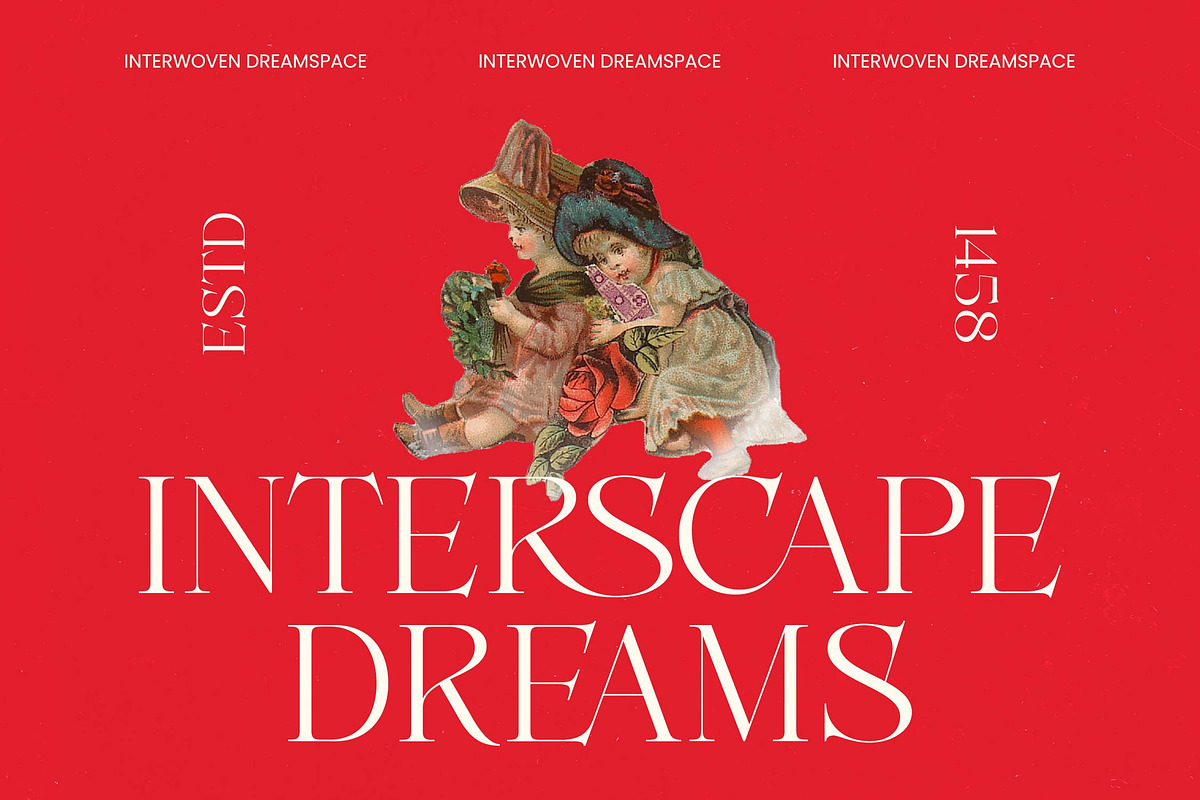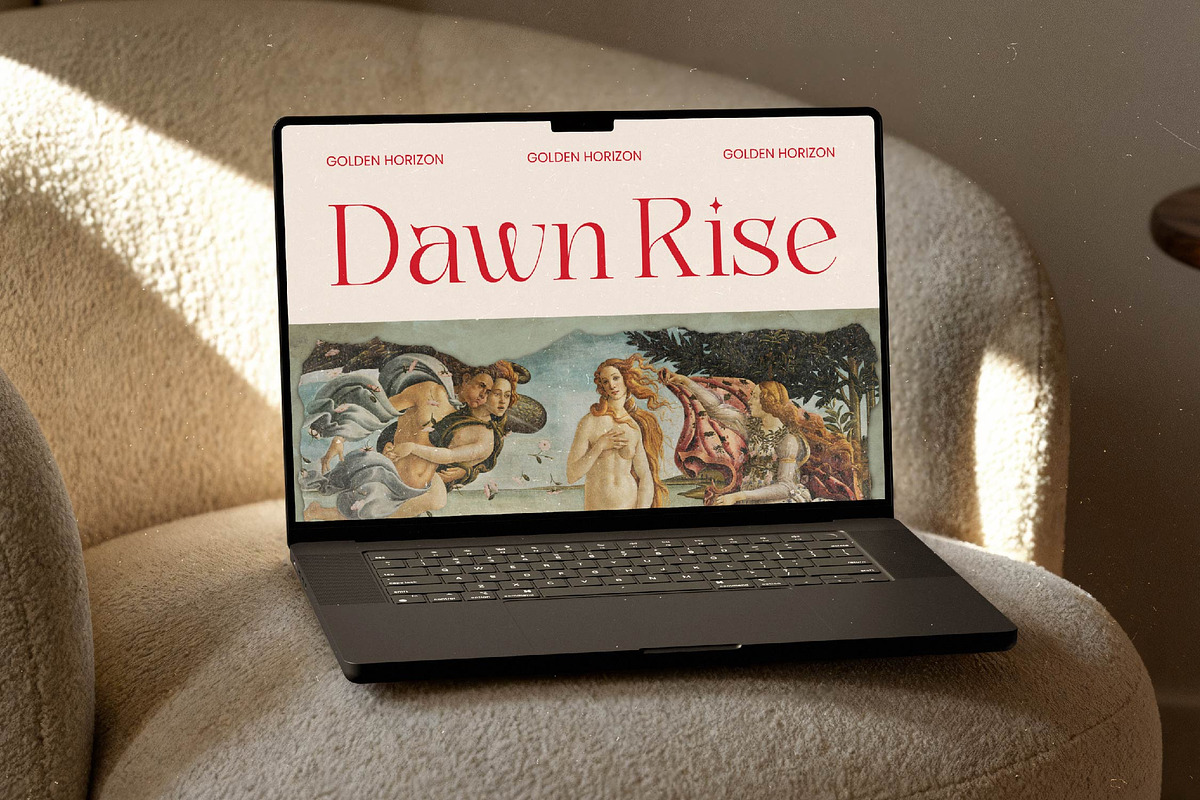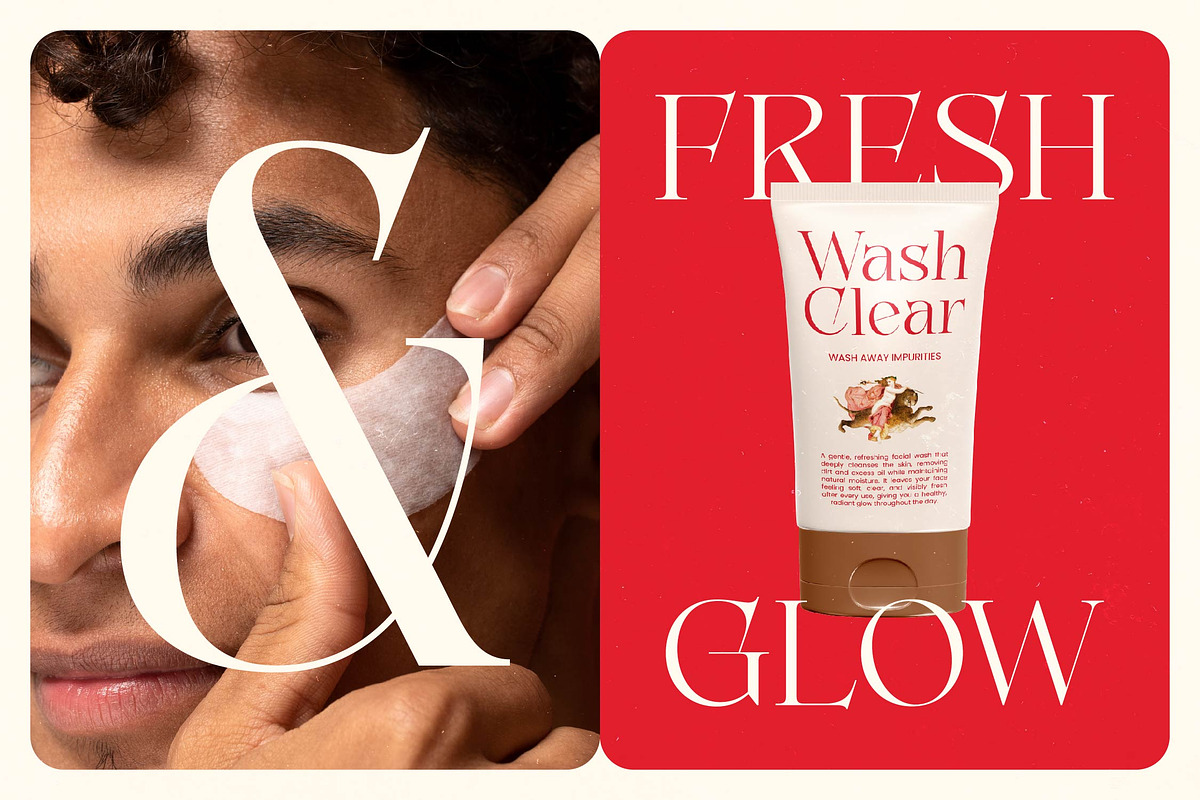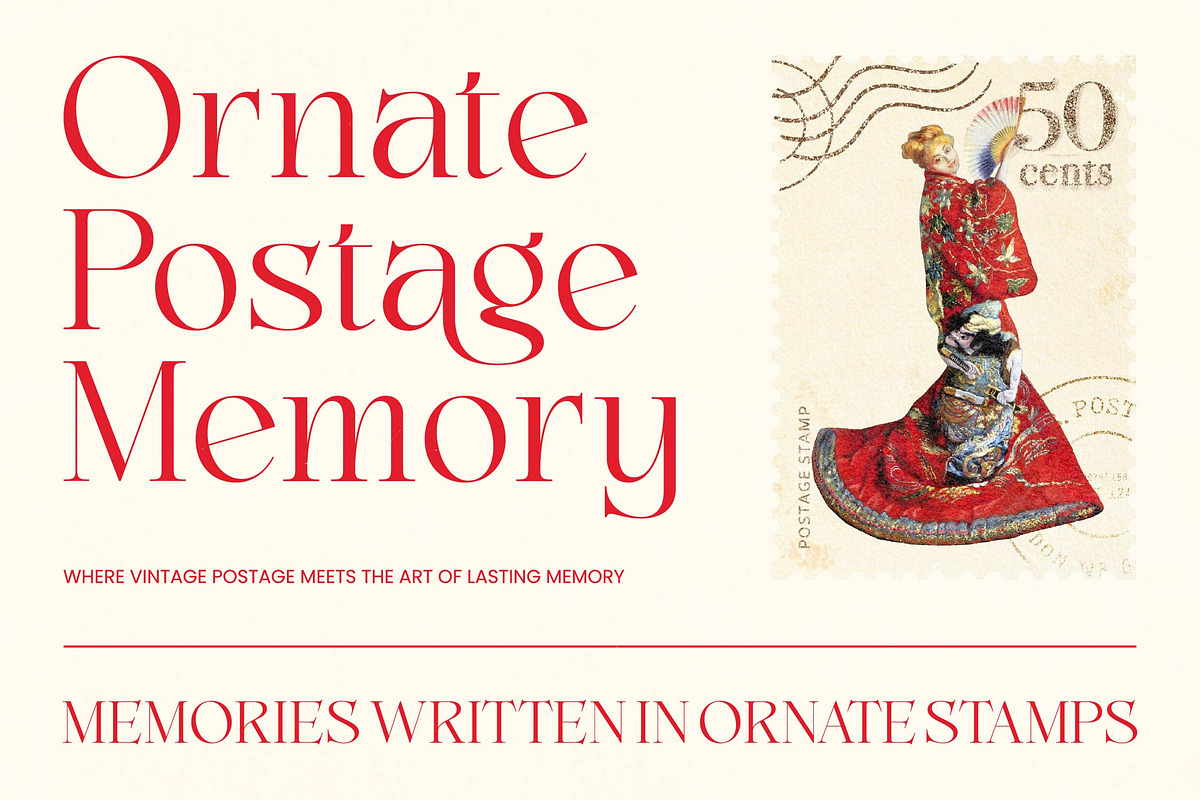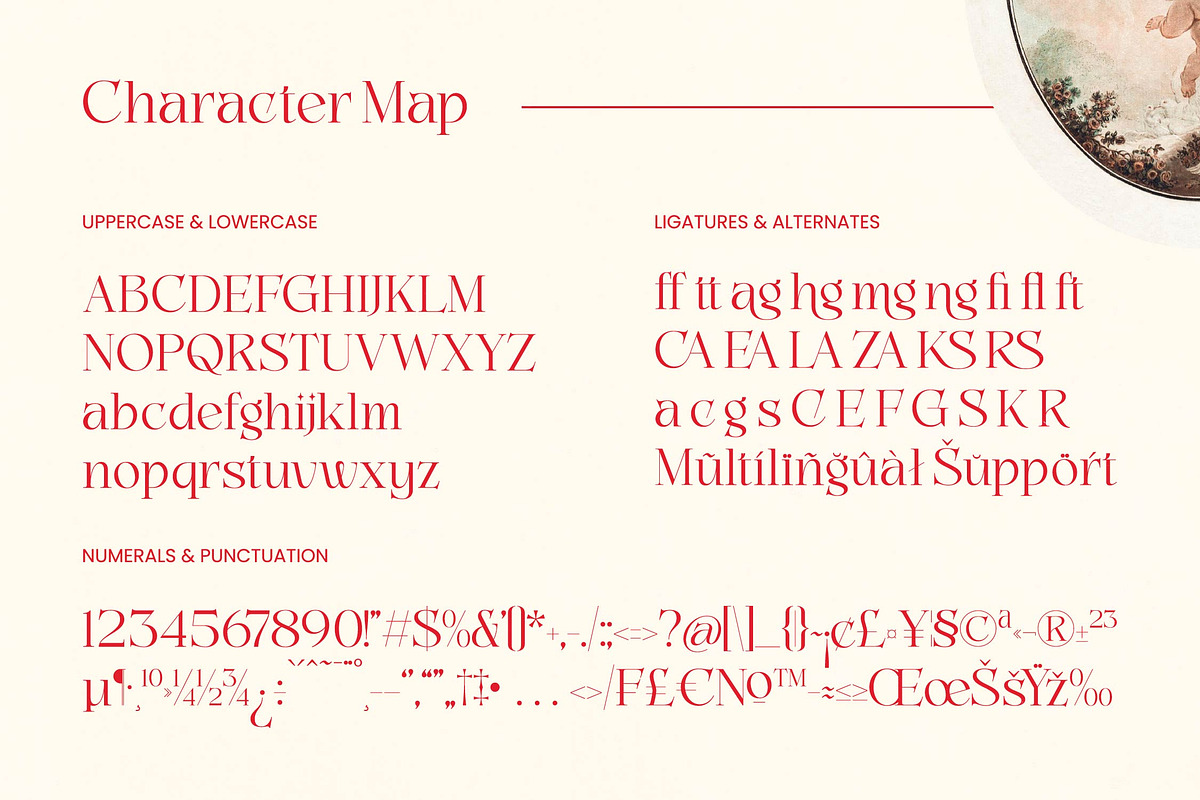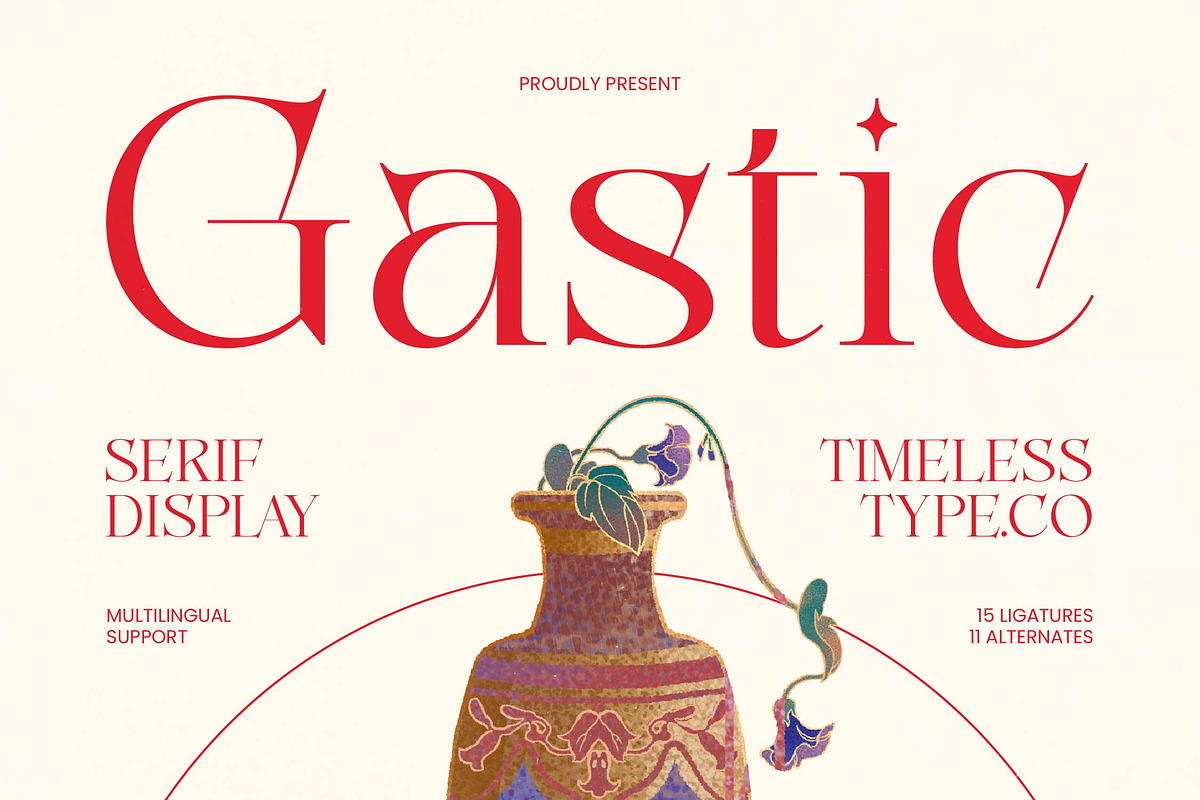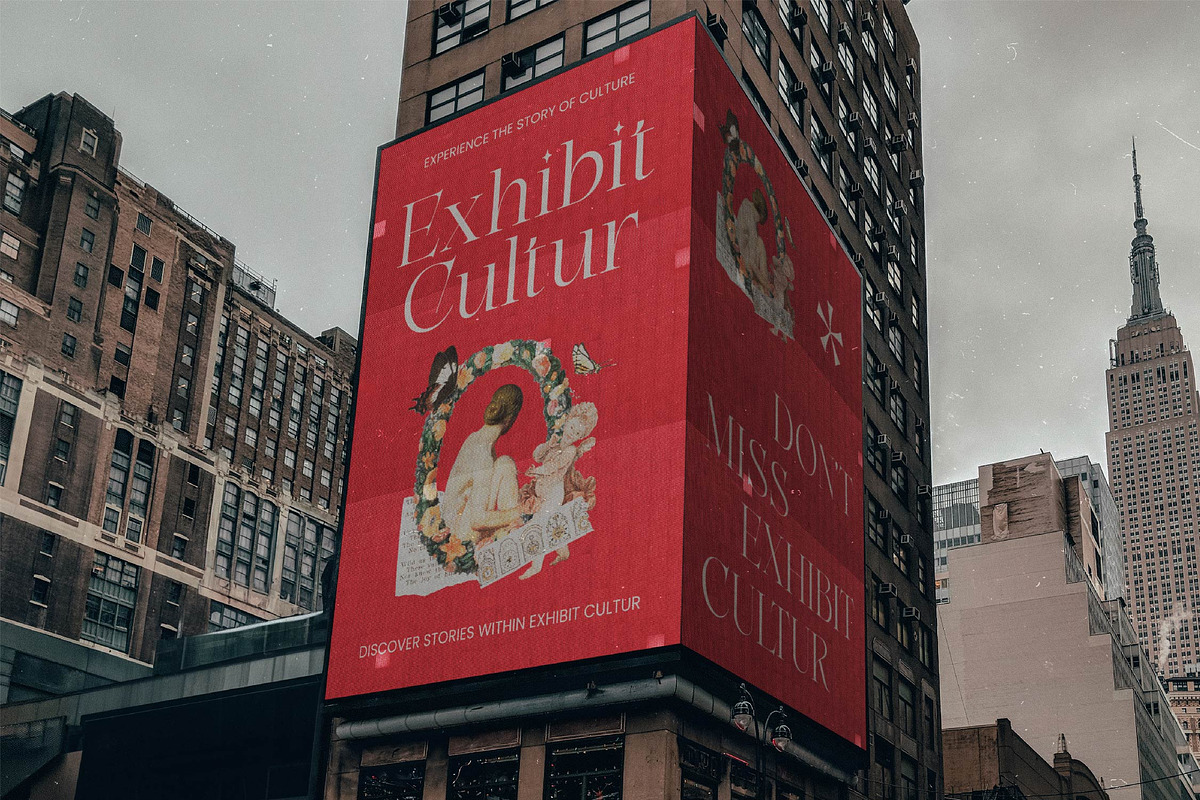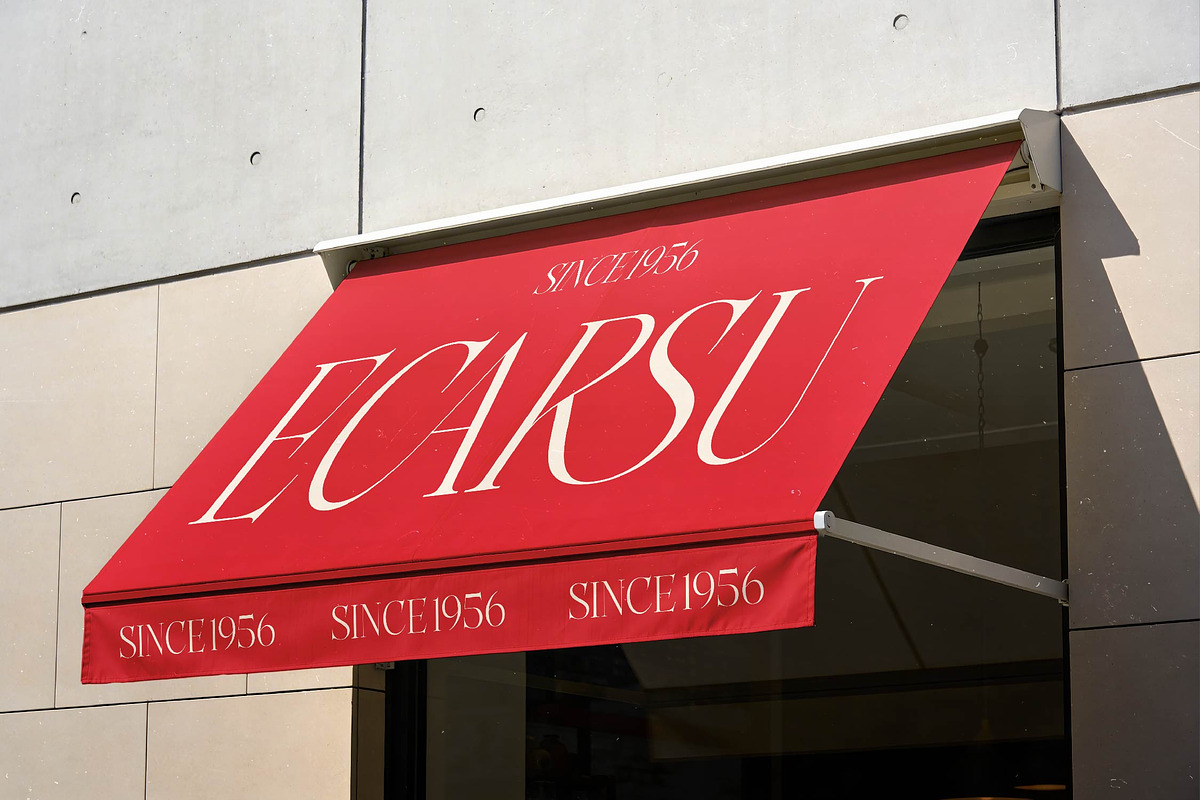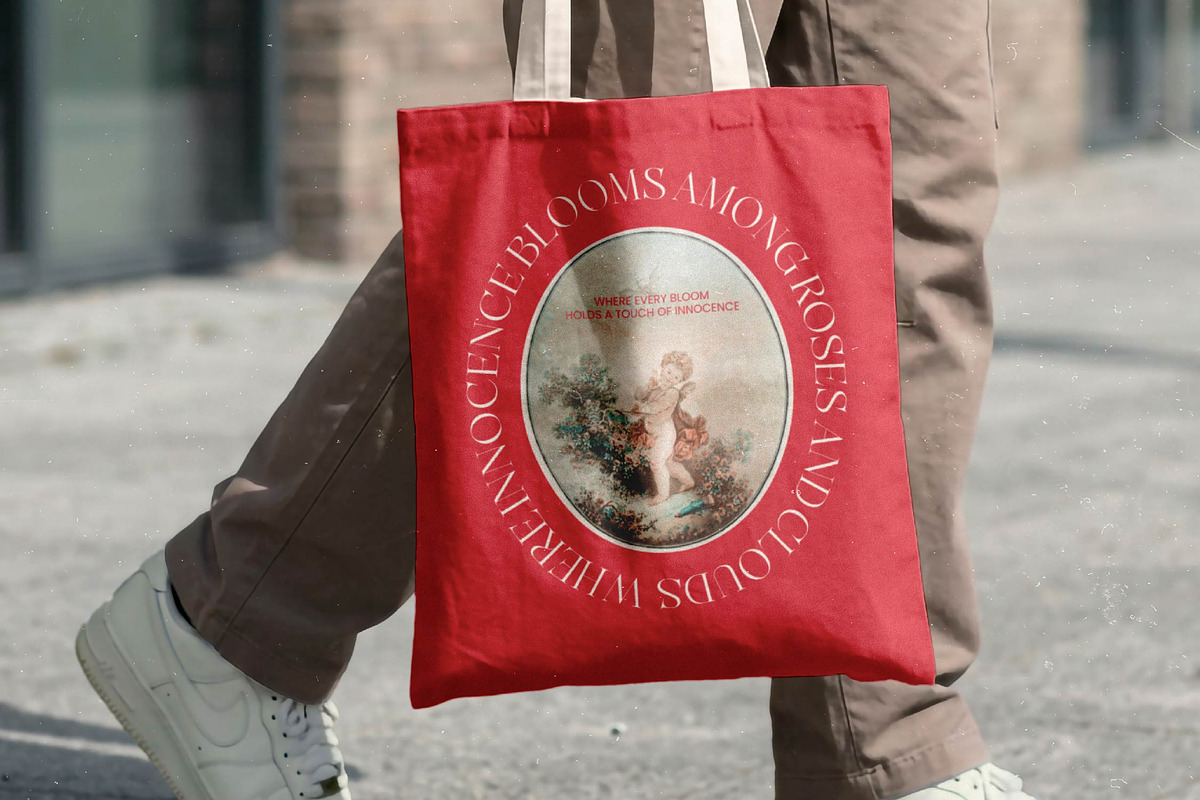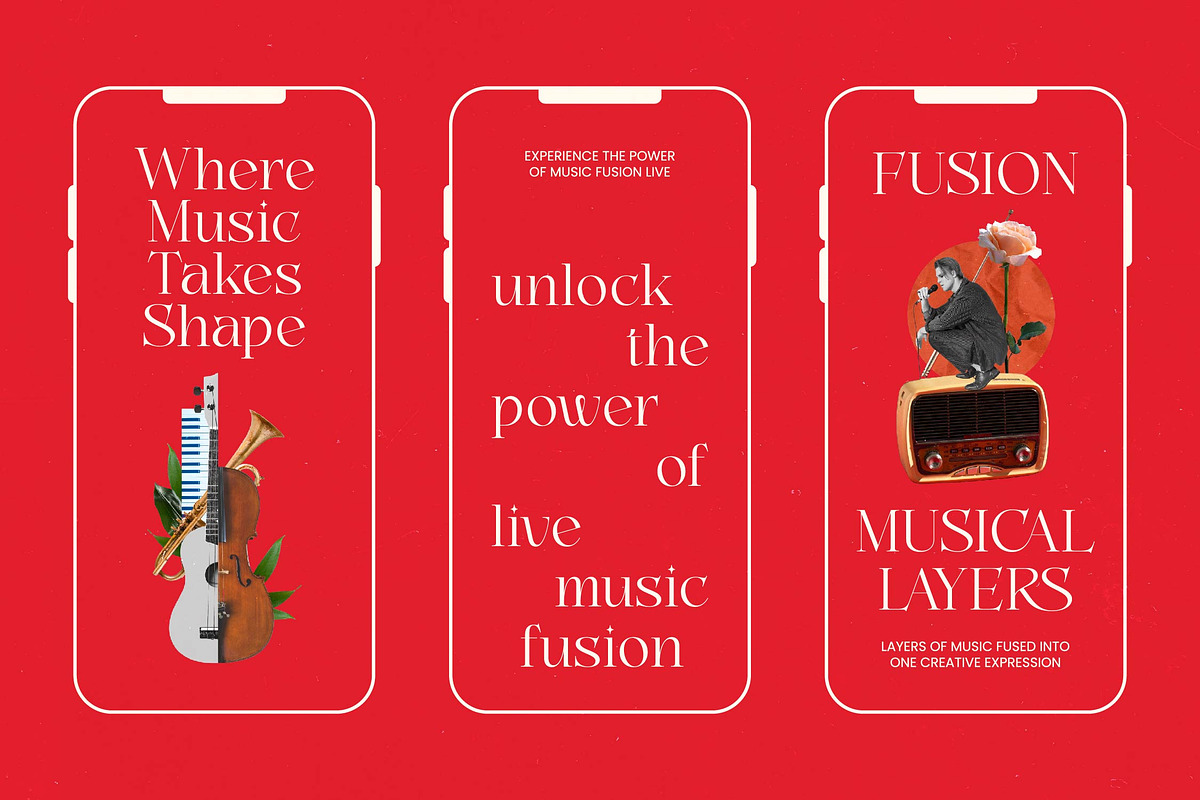
Gastic Modern Editorial Serif
**Gastic - Modern Editorial Serif , **Elevate your creative vision with a typeface that embodies pure sophistication and timeless appeal. Gastic - Modern Editorial Serif is a high-contrast display font that expertly merges classic elegance with a contemporary edge, making it a standout choice for discerning designers. Its refined silhouettes and sharp, deliberate terminals provide a luxurious aesthetic that commands attention while maintaining a sense of effortless grace.
Precision engineering meets artistic expression through a comprehensive set of advanced typographic features. Gastic - Modern Editorial Serif offers 15 unique ligatures and 11 stylish alternates, empowering you to craft bespoke headlines with a custom-lettered feel. With its extensive multilingual support, Gastic - Modern Editorial Serif adapts seamlessly across global markets, making it incredibly versatile for international projects and wide-reaching marketing campaigns.
Master the art of visual storytelling with a typeface designed for maximum impact across various high-end mediums. The ideal application for Gastic - Modern Editorial Serif includes luxury branding, high-fashion editorial design, and premium product packaging. It is also perfect for logo design, modern website headers, and exclusive event invitations where a touch of sophisticated flair is required to elevate the overall brand identity.